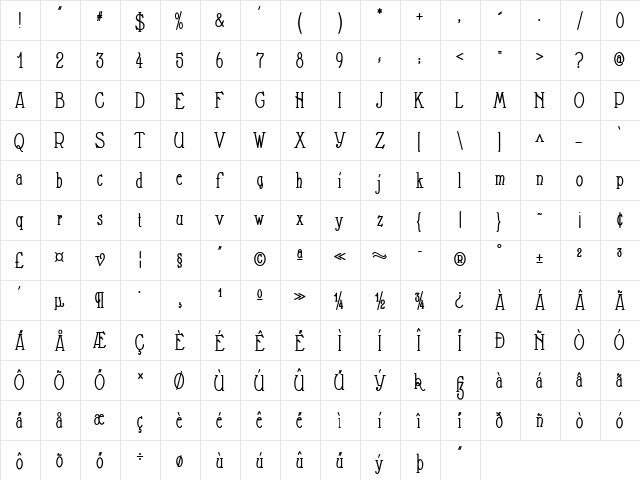
Nathan Condensed Regular
| Foundry | Peter Wiegel |
| Designer | Peter Wiegel |
Design Context for Nathan Condensed Typeface
Nathan Condensed offers clean, dependable letterforms without strong stylistic allegiance, making it a practical choice for designers who need flexibility. The condensed width makes it efficient for tight spaces without sacrificing legibility.